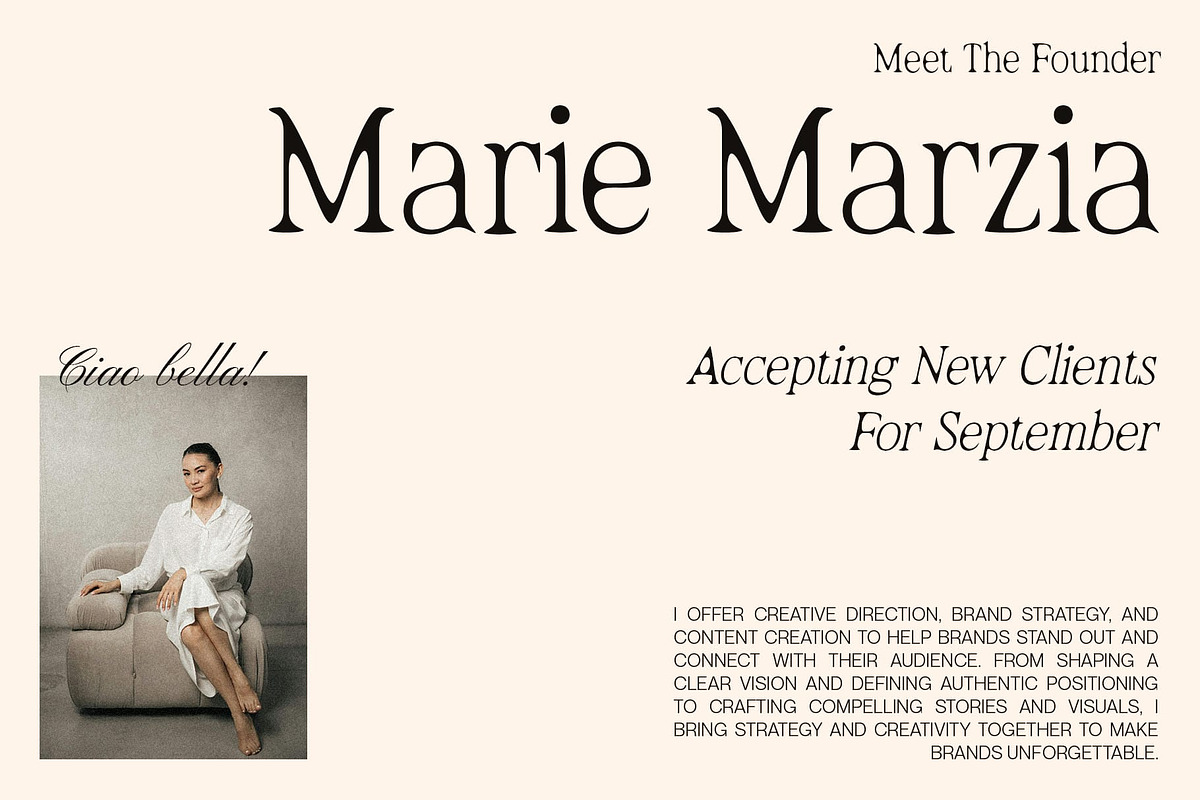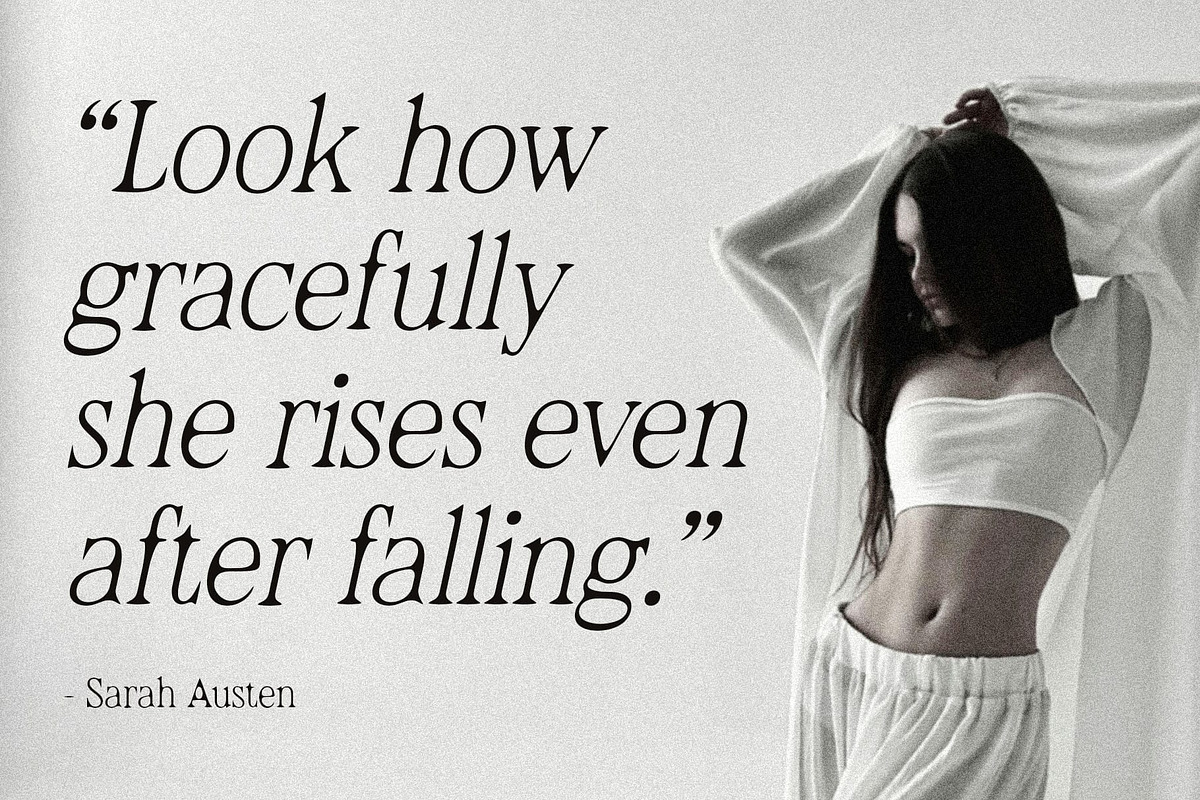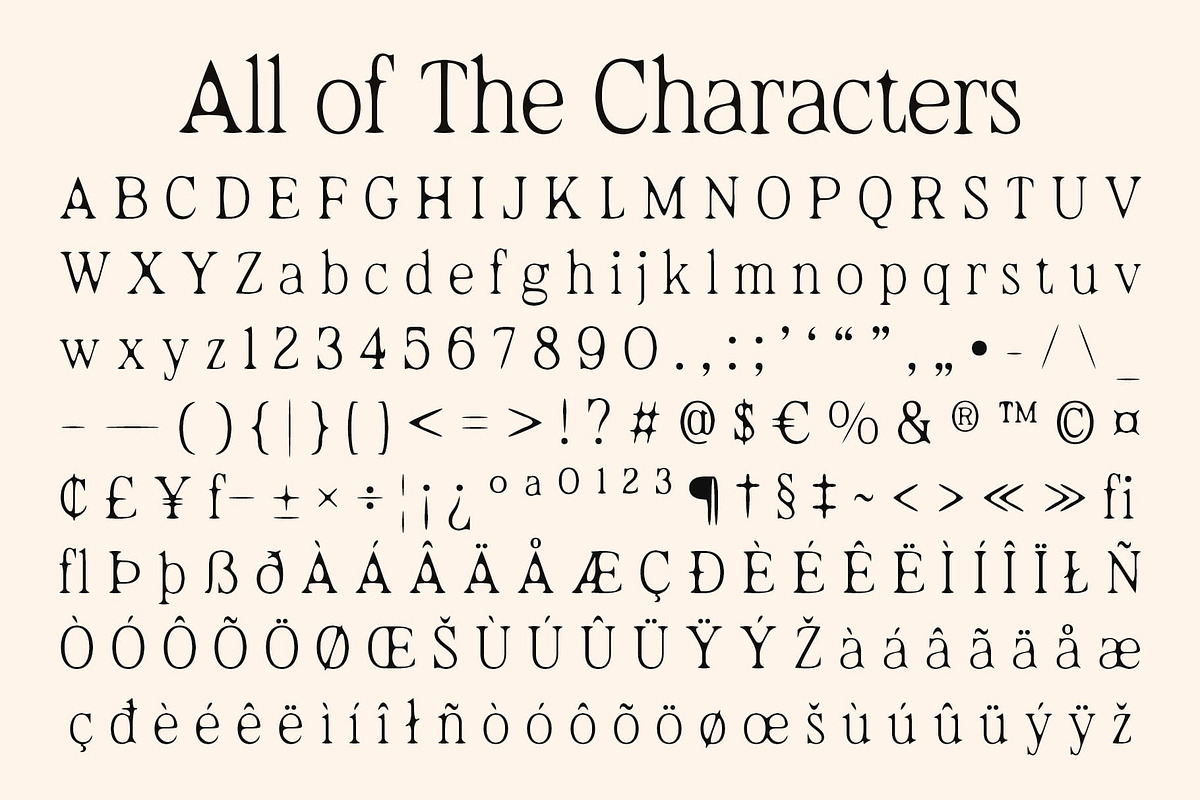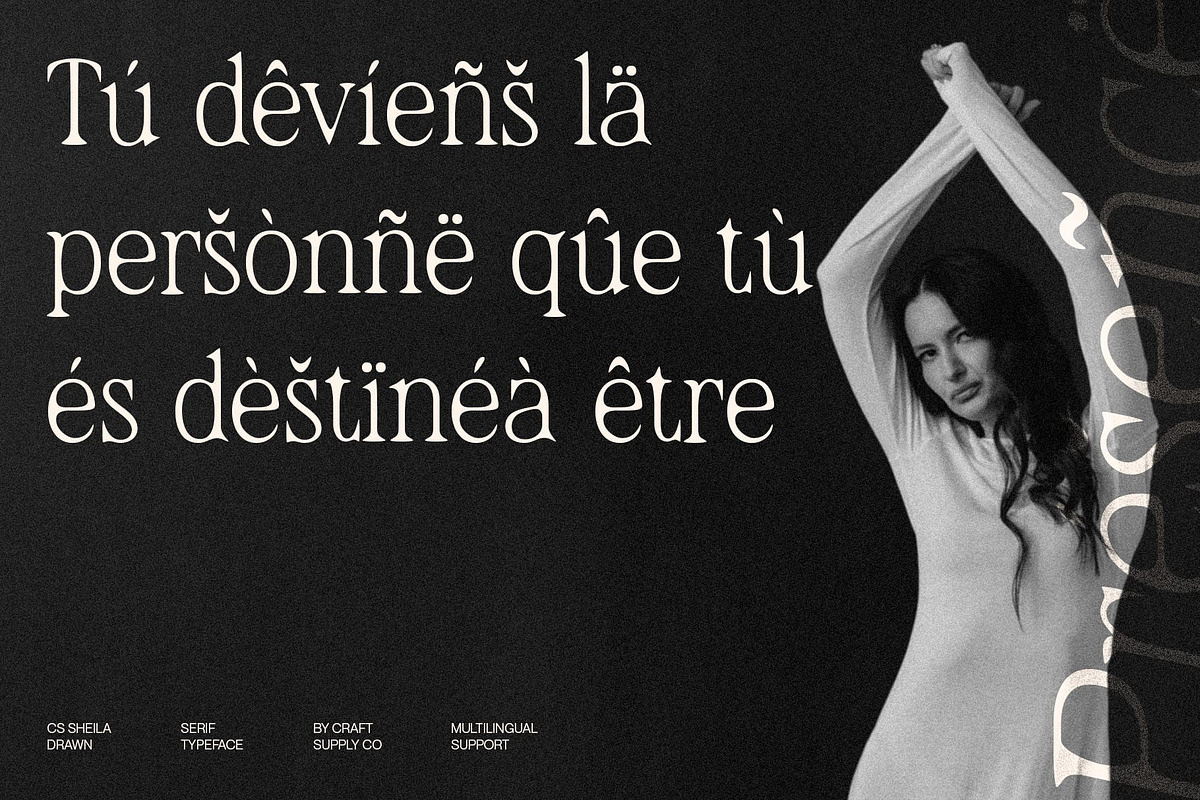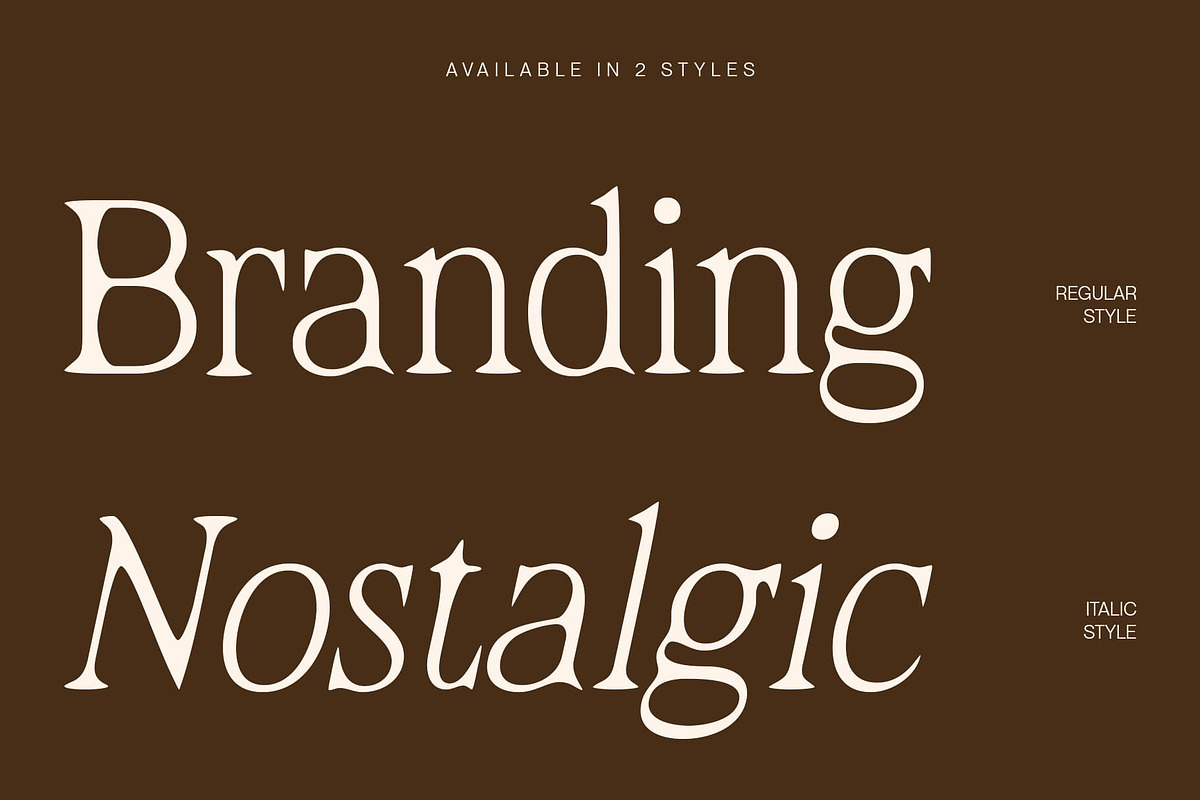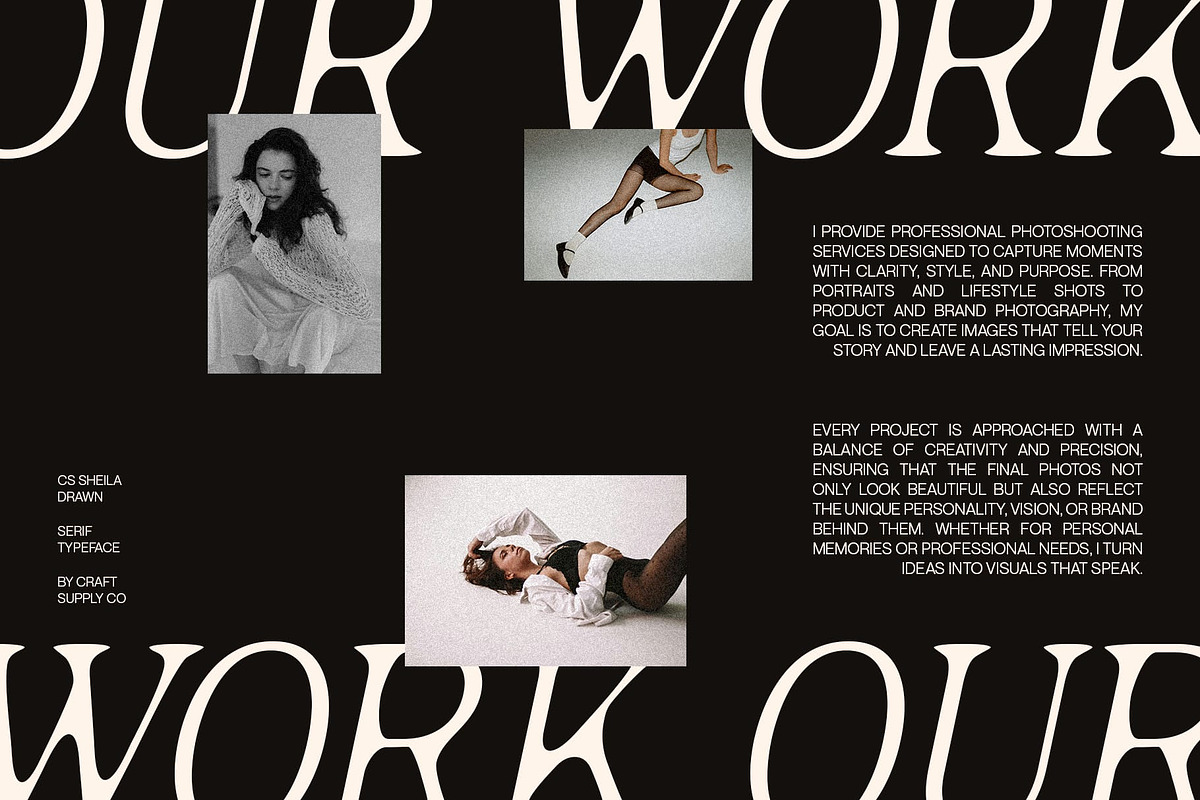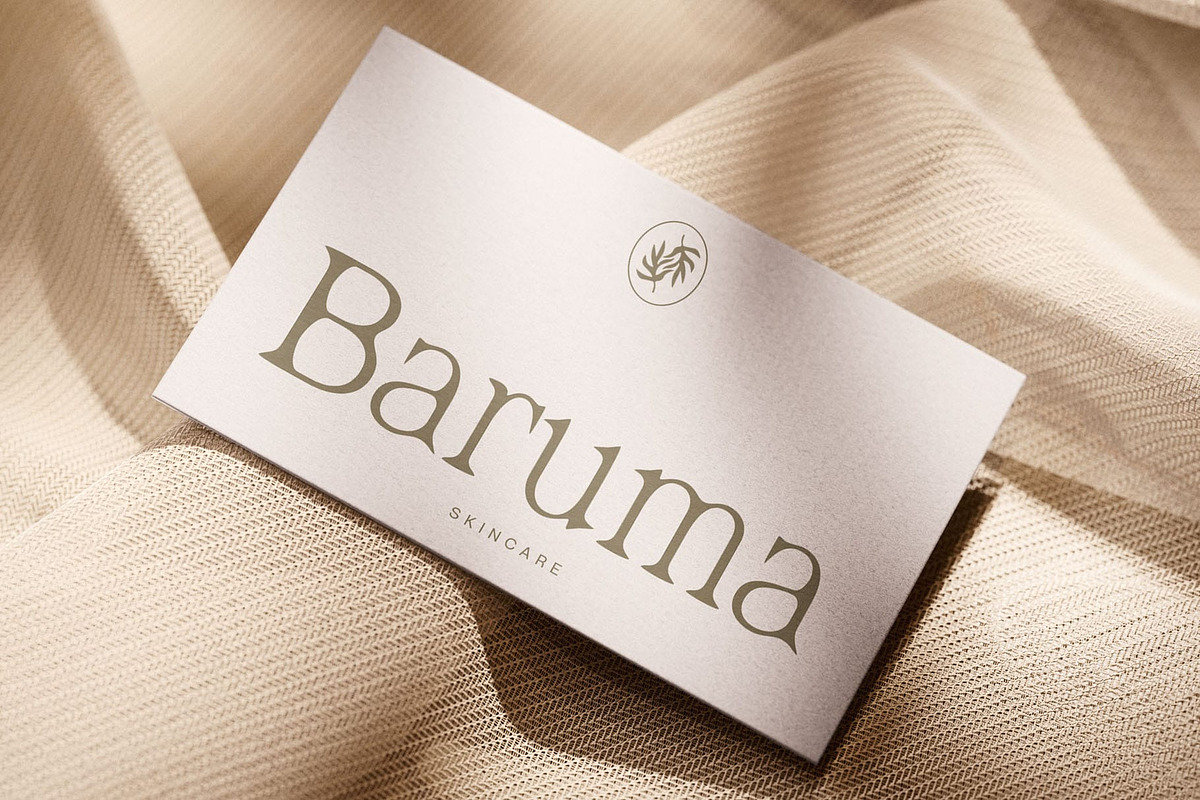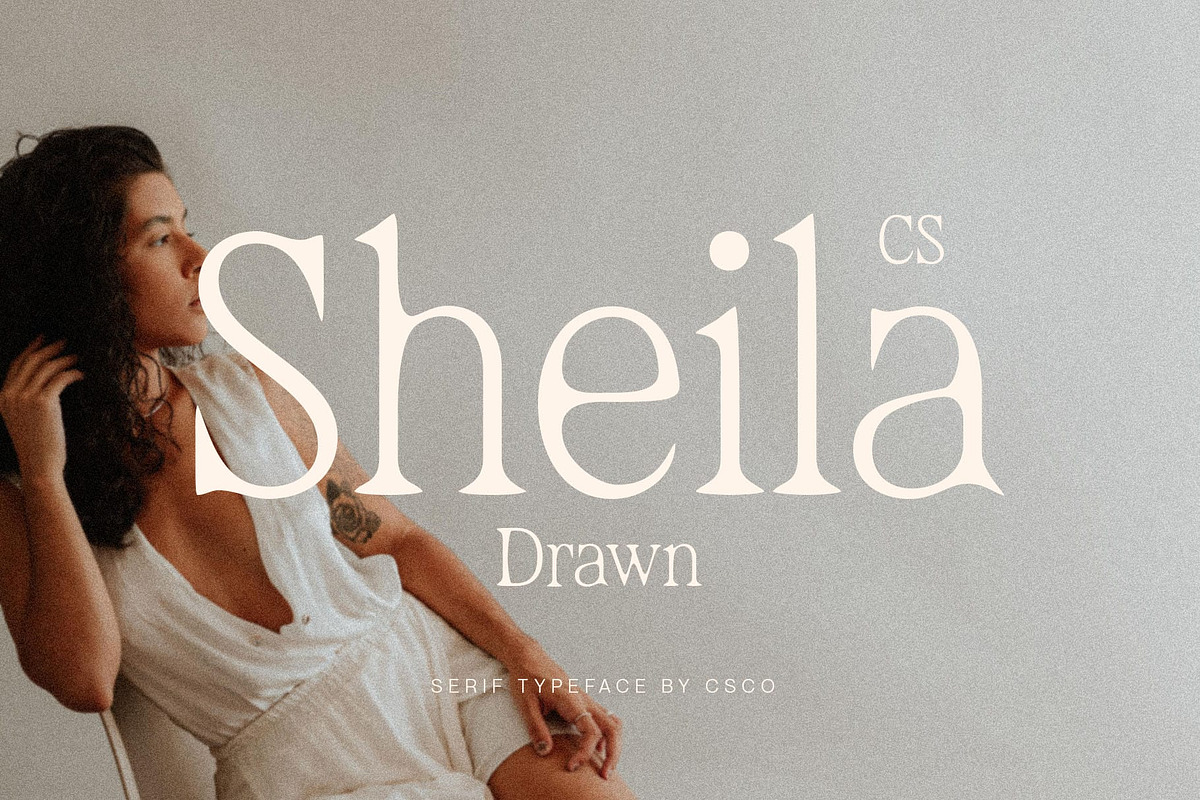
CS Sheila Drawn
CS Sheila Drawn – Handcrafted Serif with Ink-Overflow Texture and Vintage Drawn Style
Relaxed and Personal Feel CS Sheila Drawn is a serif font designed with a drawn effect that gives it a warm, personal character. Each letter carries the impression of being handcrafted, offering a relaxed and approachable tone that makes it stand apart from traditional serif fonts.
Ink-Overflow Detailing The unique texture of CS Sheila Drawn lies in its ink-overflow edges, where every corner feels alive and imperfect. This handcrafted irregularity adds authenticity and depth, evoking the look of old prints and written manuscripts. It’s this subtle imperfection that gives the font both charm and character.
Vintage Elegance with Modern Use Blending a nostalgic aesthetic with practical usability, CS Sheila Drawn is an excellent choice for projects that want to emphasize heritage, personality, or retro appeal. Its serif foundation ensures readability, while the drawn texture provides a distinctive twist that feels both vintage and stylish.
Perfect for Creative Branding From vintage logos and nostalgic packaging to magazines and editorial layouts, CS Sheila Drawn adapts beautifully across a range of design projects. Its balance of personality, texture, and structure makes it a versatile serif that highlights creativity while retaining a sense of tradition.